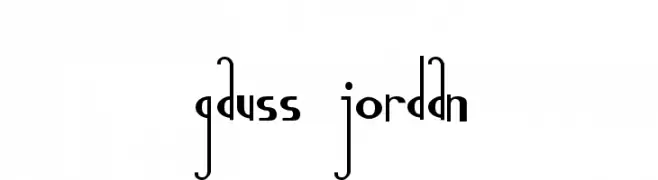
( Fonts by or from www.graffitifonts.net )
A bold, modern font with characters enclosed in squares, offering a geometric and structured look.
( Fonts by Rich Gast - www.greywolfwebworks.com Sponsoren Schriftart )
A bold, distressed font with a glitch-like effect, ideal for tech-inspired designs.
( Fonts by Patrick Broderick )
A sleek, modern font with geometric lines and a monospaced appearance.
( Fonts by www.lifewithouttaffy.com )
A bold, vintage-inspired font with thick, block-like characters and tight spacing.
( Fonts by Levi Halmos )
A bold, geometric font with a modern and strong presence.
( Fonts by Rich Gast - www.greywolfwebworks.com Sponsoren Schriftart )
A bold, hypnotic font with swirling circular patterns.
( Fonts by www.DigitalDreamDesign.net )
A bold, maze-like font with intricate geometric patterns.
A bold, geometric font with a modern and futuristic style.
A modern, geometric font with a condensed structure and clean lines.
( Fonts by or from www.graffitifonts.net )
A bold, graffiti-inspired font with sharp, angular lines and dynamic shapes.
( Fonts by Jacob Fisher - www.pizzadude.dk )
A bold, textured font with a vintage, handcrafted feel.
( Fonts by Levi Halmos )
A bold, geometric font with a futuristic and modern design.
A bold, dynamic font with jagged edges and a strong, angular appearance.
( Fonts by Dieter Schumacher )
A bold, geometric font with a futuristic and modern style.
A bold, swash-filled font with a calligraphic and dynamic style.
A bold, condensed font with a strong, impactful presence.
( Fonts by www.matchfonts.com - Michel Bujardet )
A festive, candy cane-themed decorative font with bold, striped characters.
( Fonts by Nick Curtis - www.nicksfonts.com )
A decorative, double-line font with a modern and geometric style.
( Fonts by Christine Mauerkirchner and Rainer Grunert - PrimaFont )
A classic serif font with bold, elegant curves and pronounced serifs.